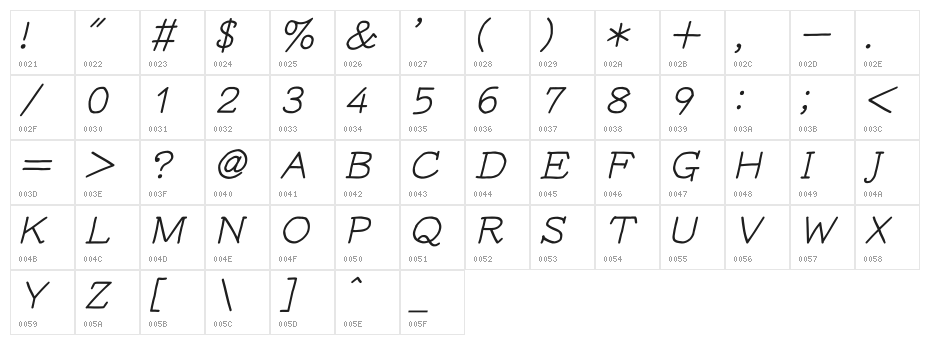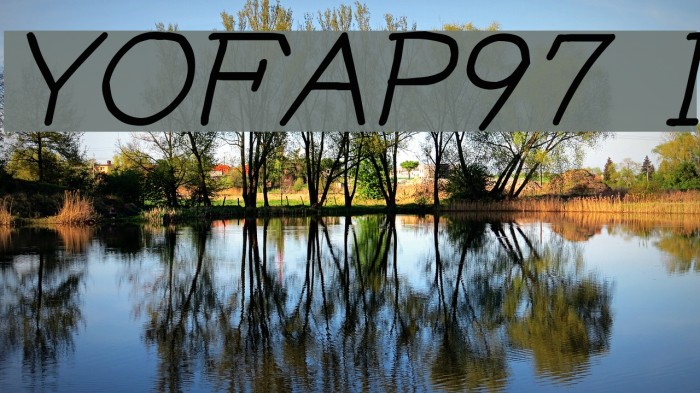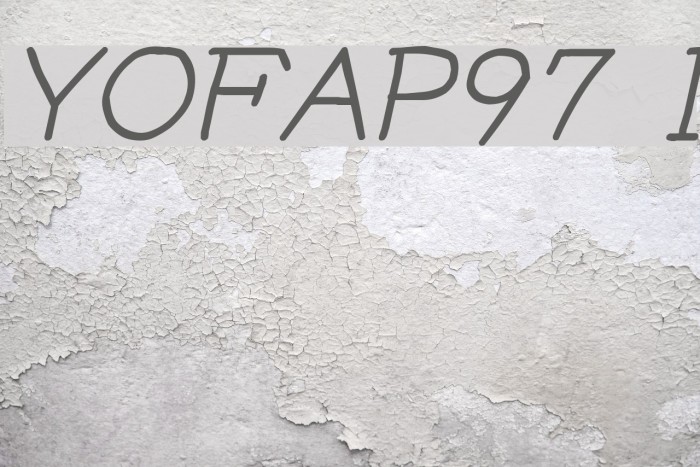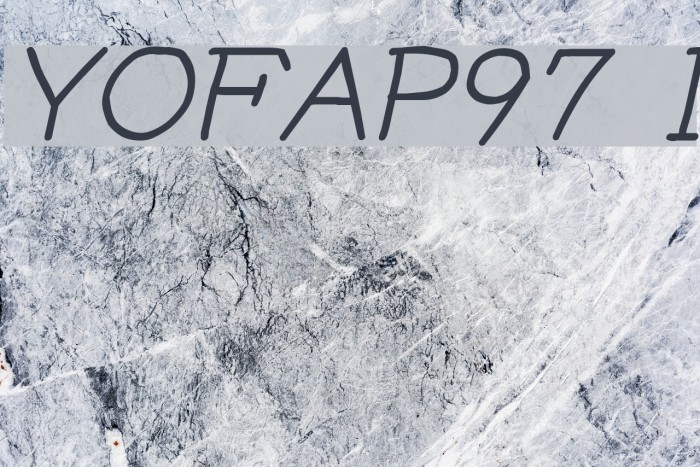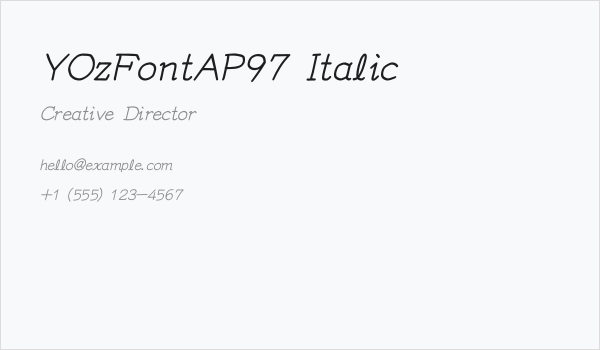
YOzFontAP97 Italic Font
YOzFontAP97 Italic Description
This font exhibits a classic italic style with a smooth and flowing appearance. The characters are slightly slanted to the right, giving a sense of motion and elegance. Uppercase letters are well-proportioned, maintaining a consistent height, while lowercase letters have a distinctive looped design, particularly noticeable in letters like 'g' and 'y'. The numerals are clear and easy to read, with a uniform thickness that complements the letters. Special characters are crafted with the same attention to detail, ensuring they blend seamlessly with the rest of the typeface.